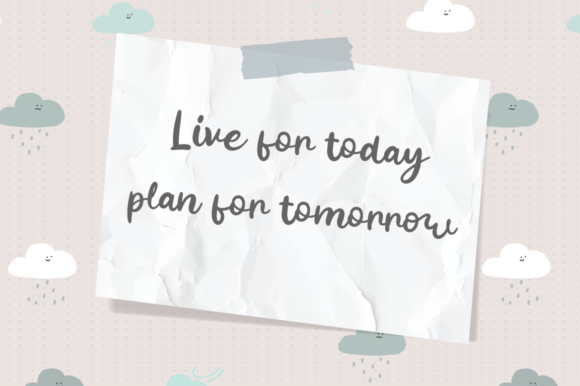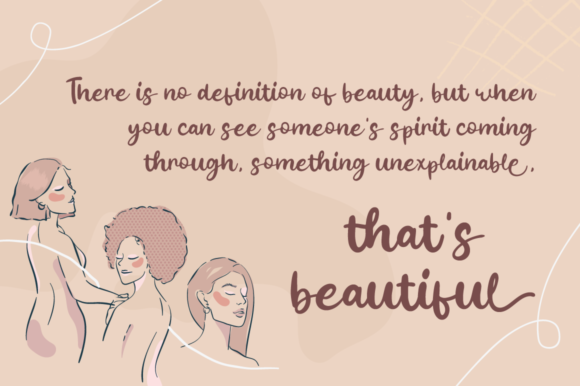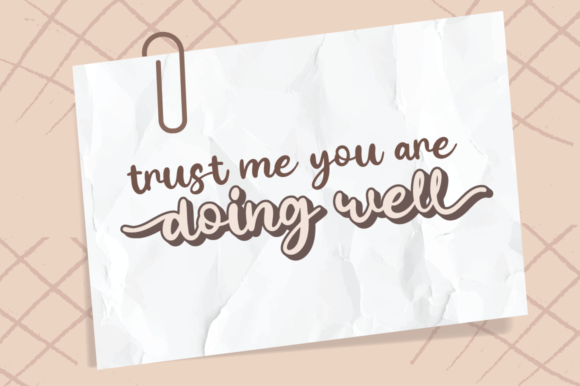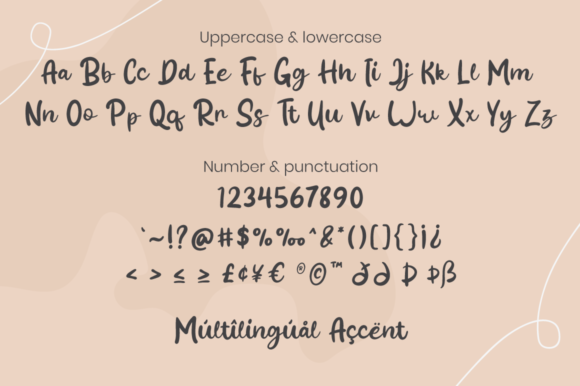
About Yasminda Font
Yasminda is a chic, refined script font that emanates sophistication and elegance. Its stylish alternates and ligatures make this font the perfect match for any project.